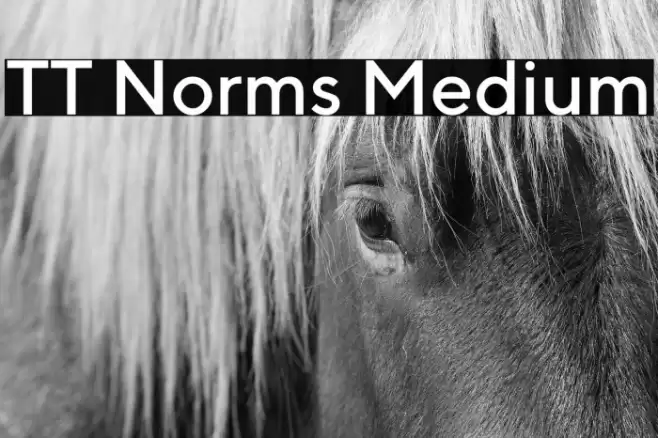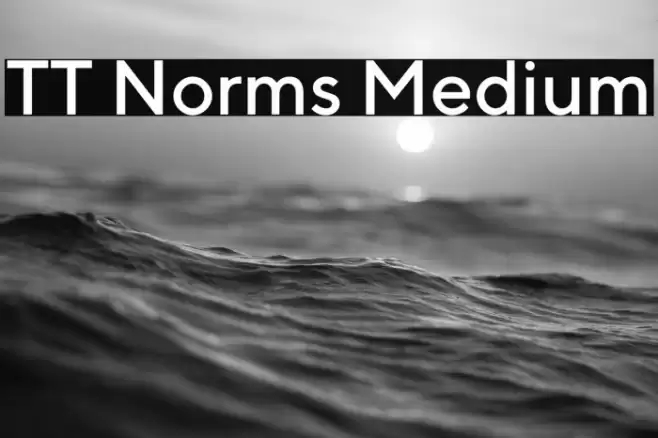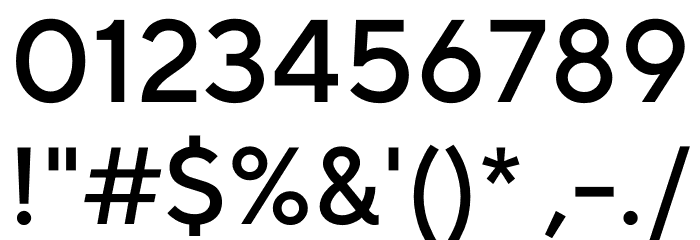
TT Norms Medium Font
TT Norms Medium Description
This font features a clean and modern sans-serif design, characterized by its geometric shapes and balanced proportions. The characters are crafted with a focus on clarity and readability, making it suitable for a wide range of applications. The uppercase letters are bold and assertive, while the lowercase letters maintain a friendly and approachable appearance. The numerals are clear and distinct, ensuring easy legibility. Special characters are well-integrated, maintaining the overall aesthetic of the font. The consistent stroke width across all characters contributes to a harmonious and cohesive look.
A modern, geometric sans-serif font with balanced proportions and clear readability from Serif fonts.
- Proposed Projects: Ideal for branding, editorial design, web design, and corporate materials.